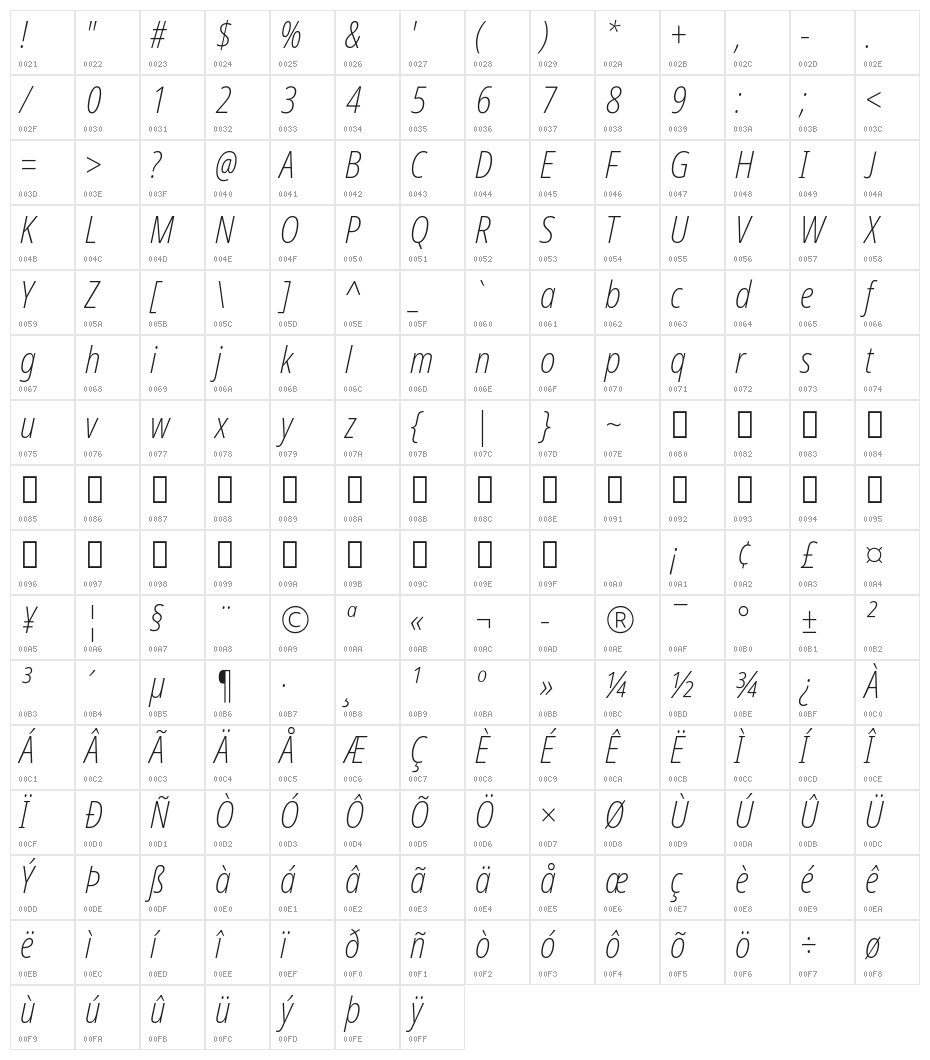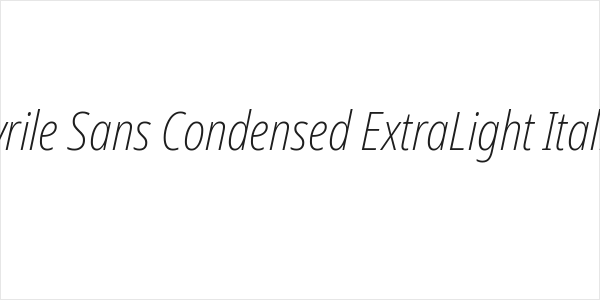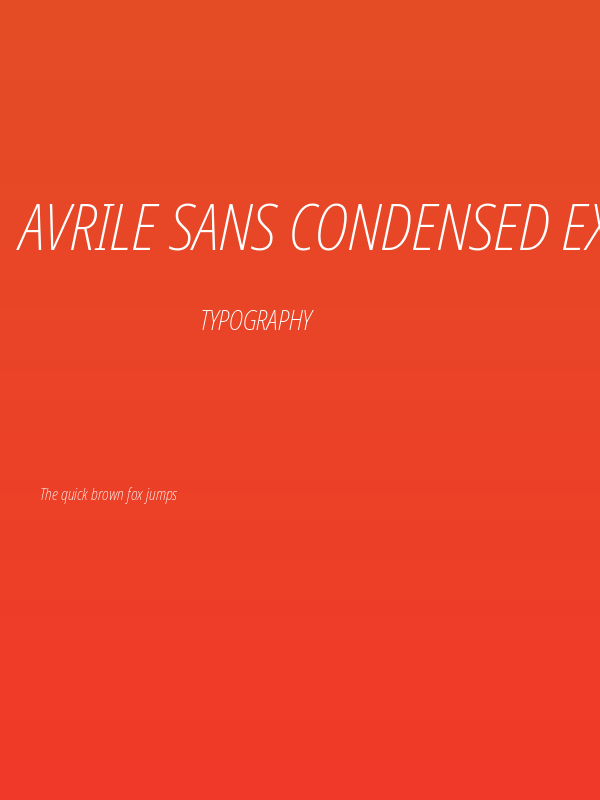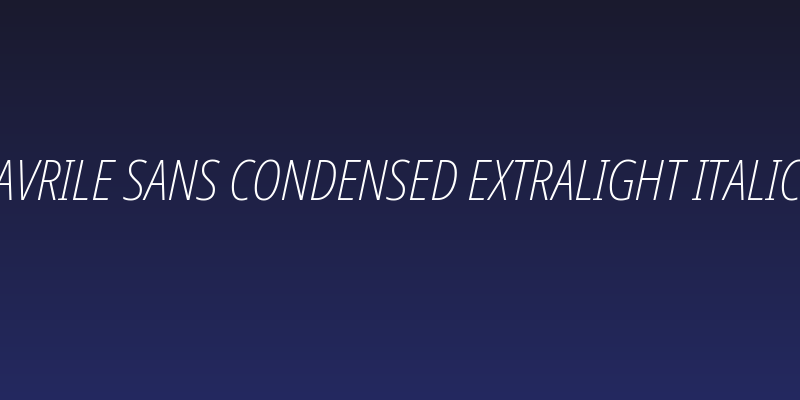
Avrile Sans Condensed ExtraLight Italic Font
Avrile Sans Condensed ExtraLight Italic Description
This font features a sleek and modern design with a sans-serif style. It is characterized by its condensed width and extra light weight, giving it an airy and elegant appearance. The italicized form adds a touch of dynamism and fluidity, making it suitable for contemporary design projects. The characters are well-defined with a consistent stroke width, contributing to its clean and professional look. The spacing between characters is tight, enhancing its compact and efficient use of space. This font is ideal for projects that require a modern and sophisticated aesthetic.
| Proposed Projects | Ideal for modern branding, editorial design, fashion magazines, and minimalist websites. |